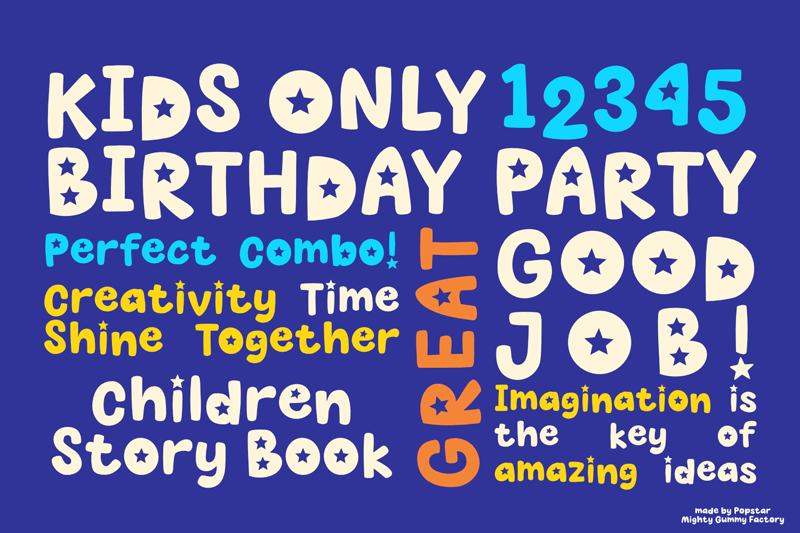
Free download MGF Popstar Font
Preview and download MGF Popstar Font. Created by Mighty Gummy Factory in Fancy Cartoon styles with Free for personal use license.
Say hello to POPSTAR, a bright and bouncy display font that�s ready to shine in your next creative project! With star-shaped accents inside every letter and playful, chunky curves, this font is the perfect choice for anything that needs a joyful, youthful vibe. Whether you're designing for kids, creating bold YouTube thumbnails, crafting playful packaging, or adding some magic to your social posts�POPSTAR is your go-to for eye-catching, high-energy designs. !!!WARNING!!! By choosing to install or use this font, you automatically accept the licensing terms provided Free to use for personal projects only For commercial use, monetized projects, or to obtain a custom license, please contact us first at: mightygummyfactory@gmail.com Any commercial use of this font under a 'Personal Use' license without our permission will result in a penalty that we will enforce Kind Regards, Mighty Gummy Factory, 2025 |